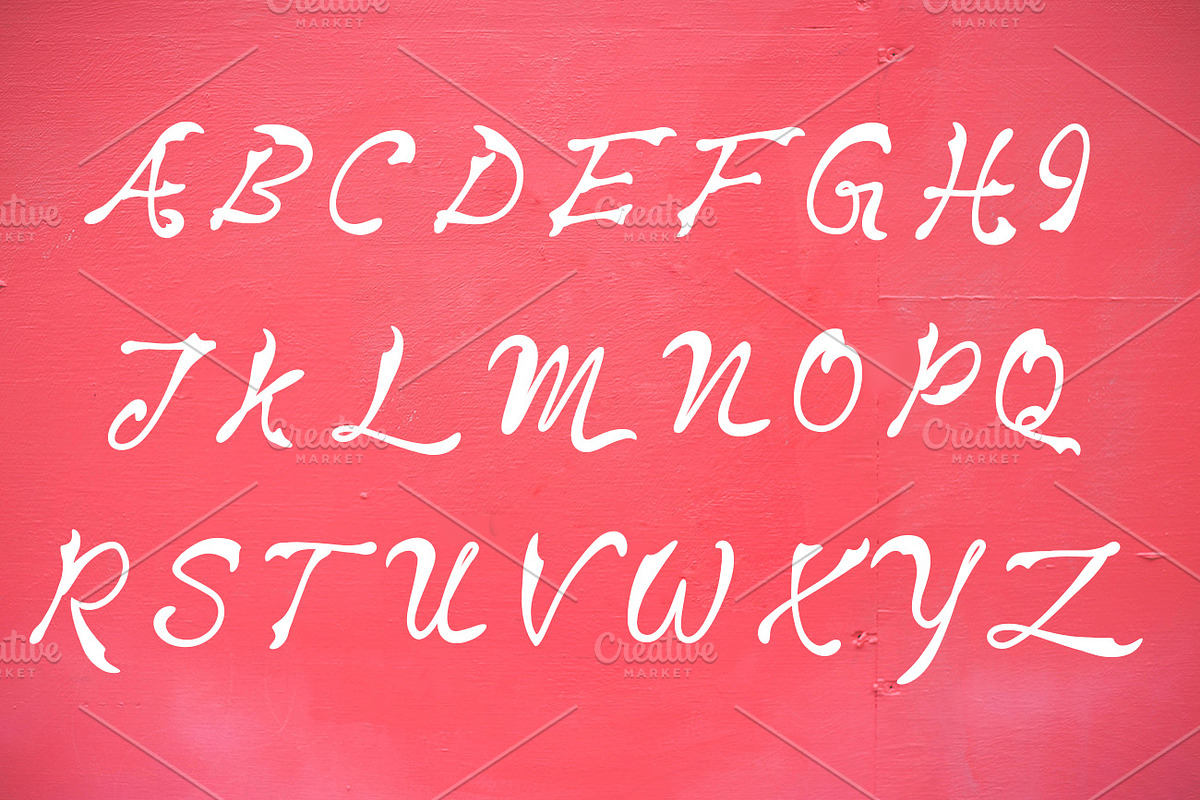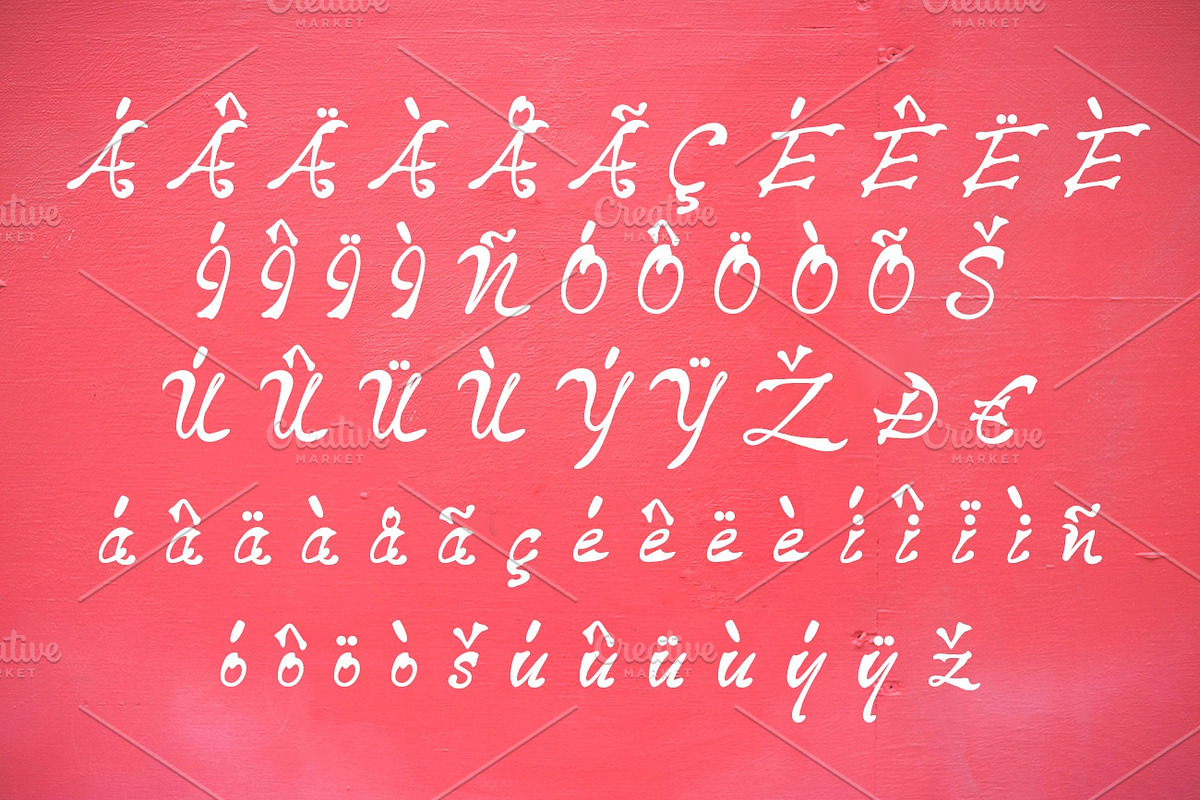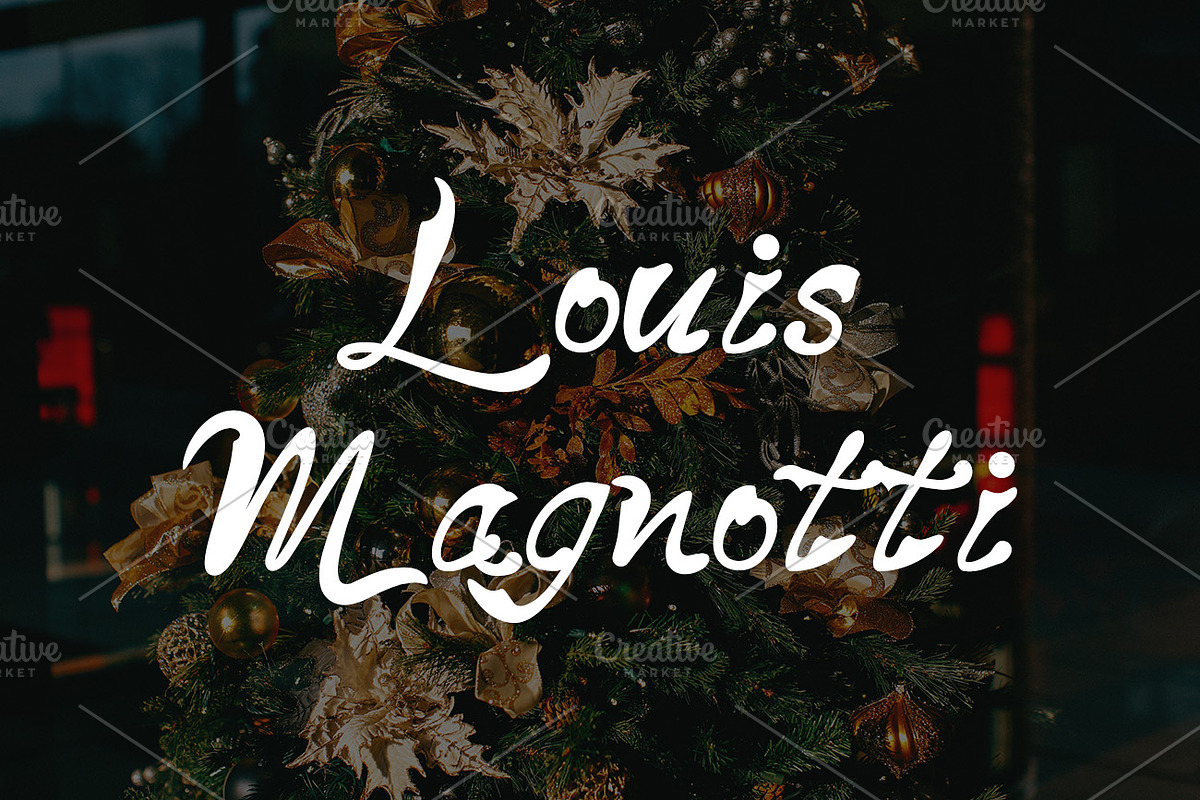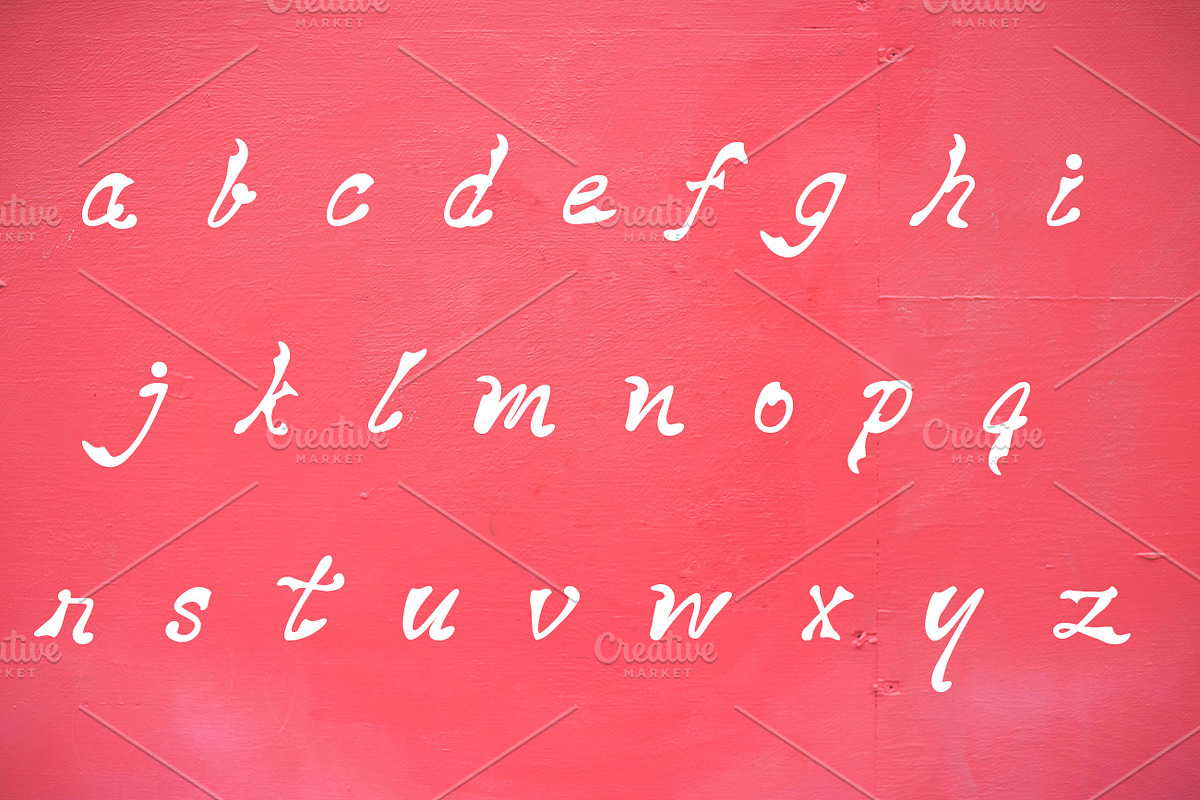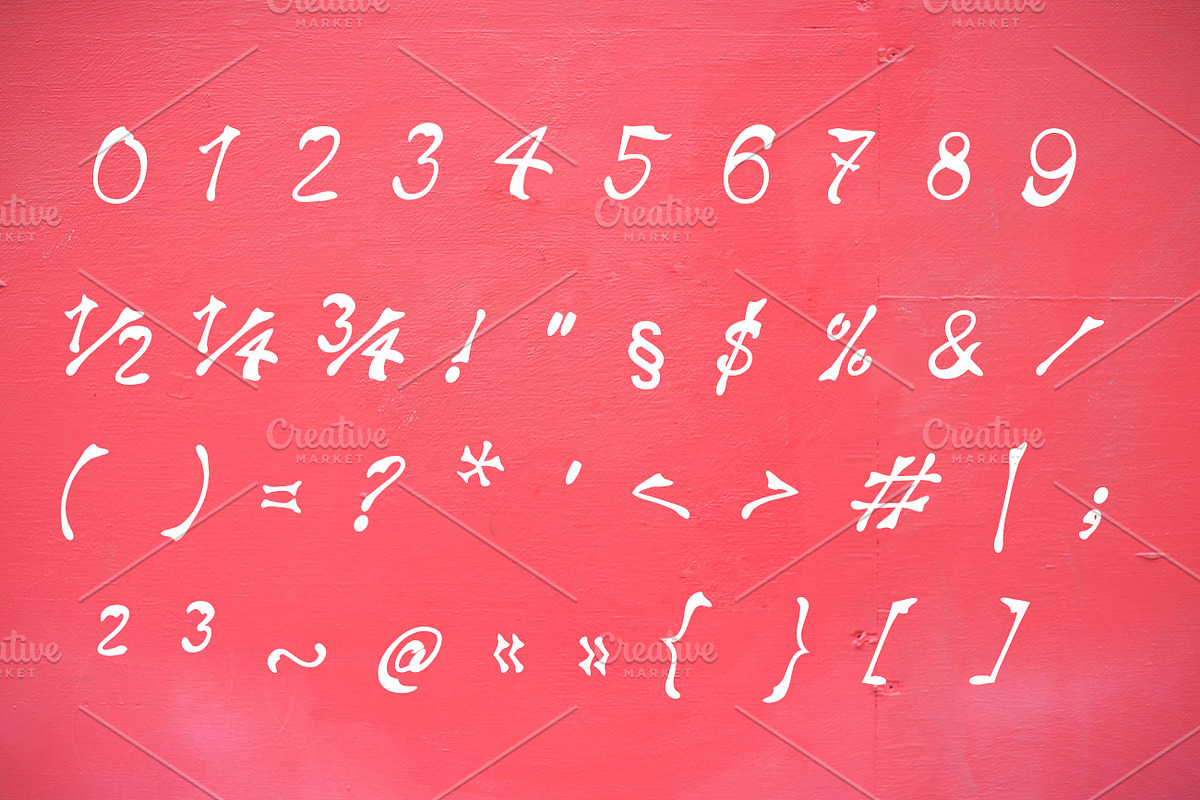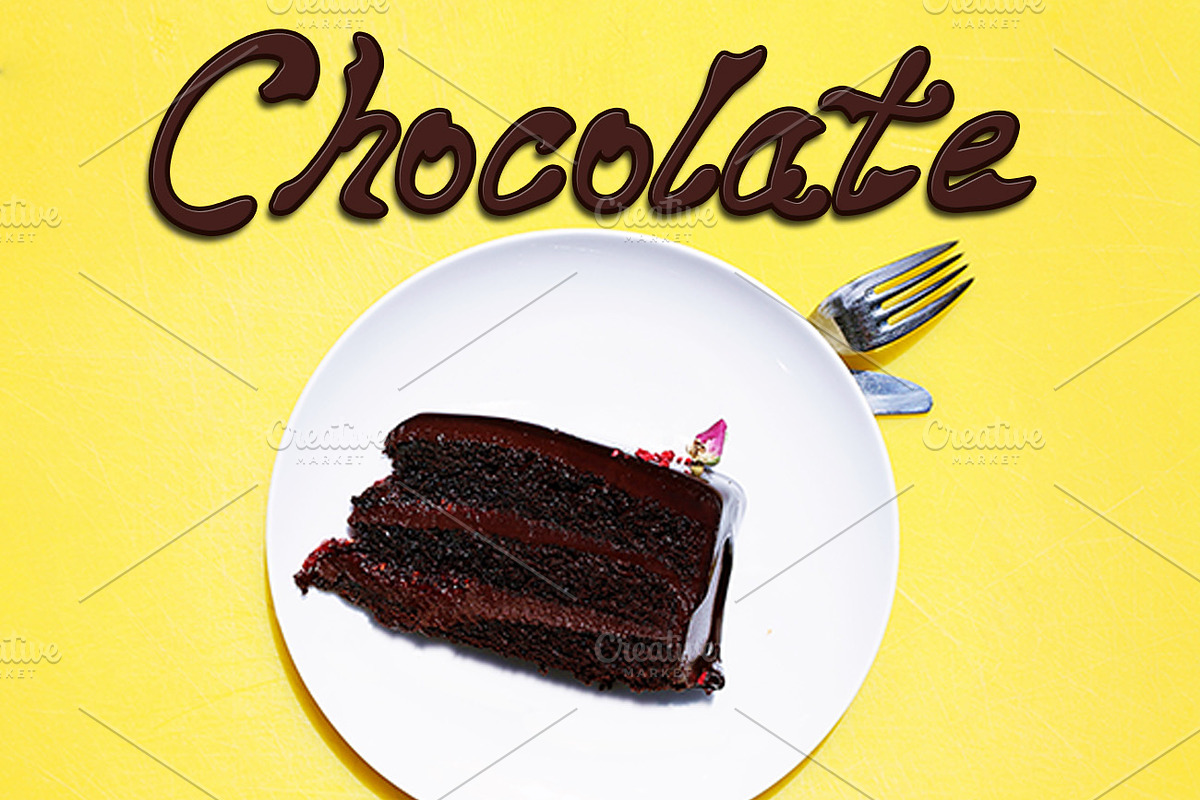
Liquefist Font
Make your creative graph with “Liquefist Font” suitable for any innovative design. Liquefist Font is a Brushy Stylish Font, Available in exclusive characters.
- Liquefist Font is a Brushy Stylish Font, Available in exclusive characters.
Liquefist Font by zahidhossainalif fits naturally into Branding, posters, packaging, typography.